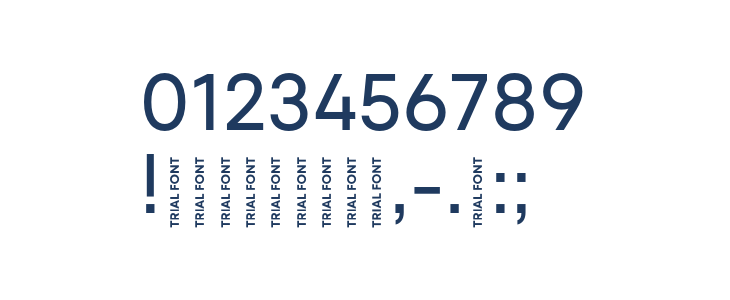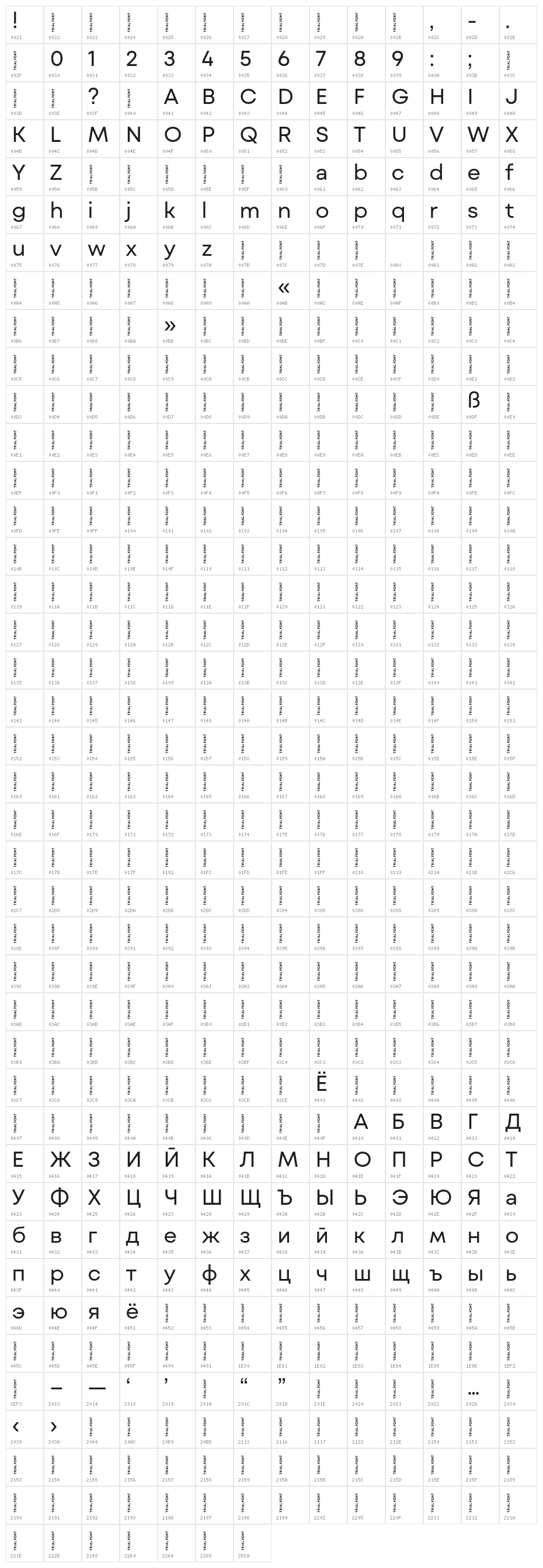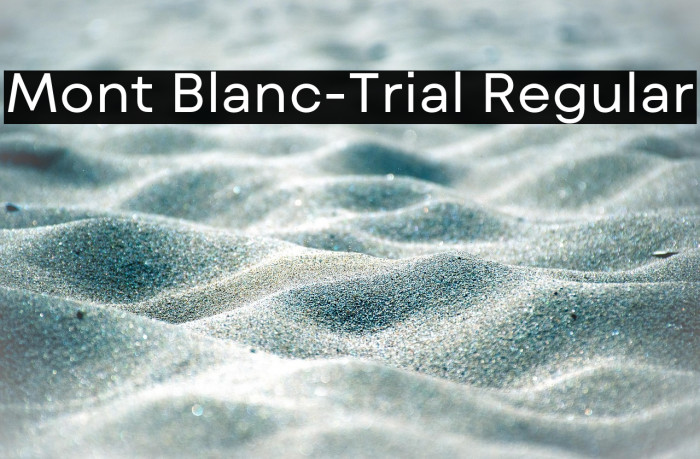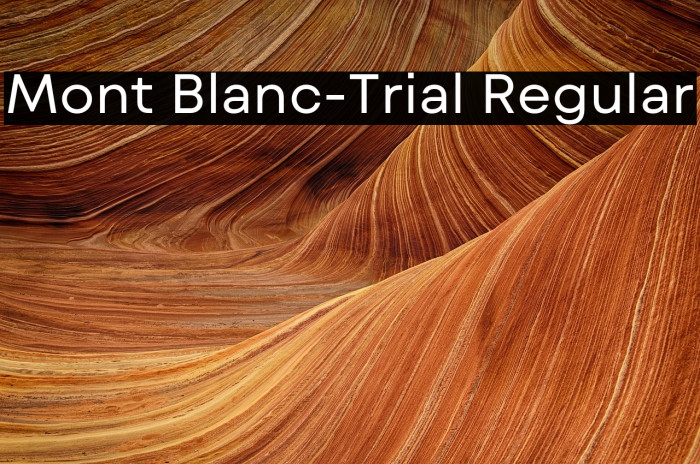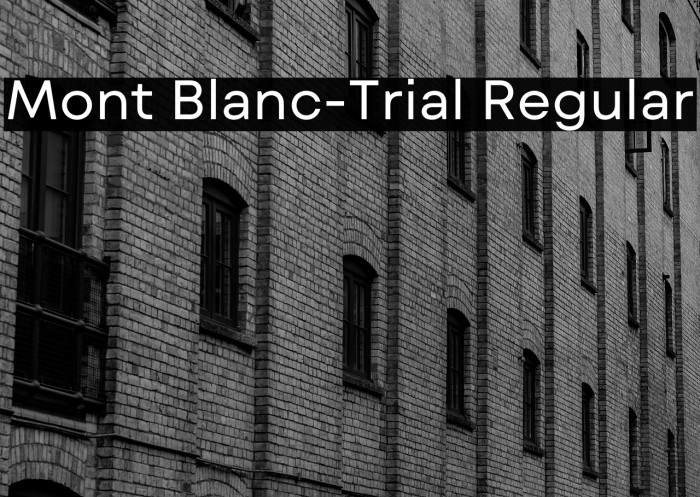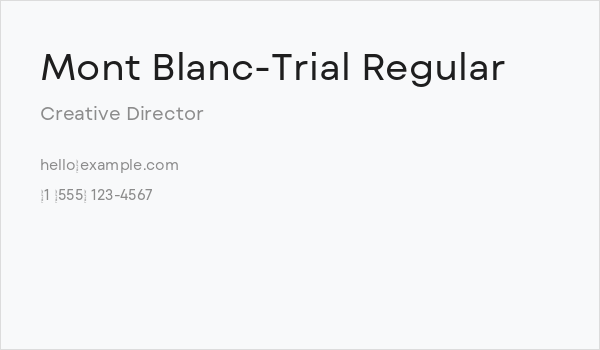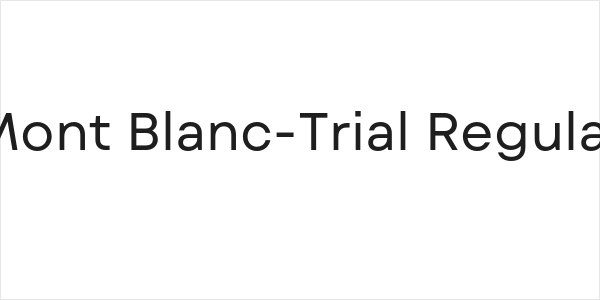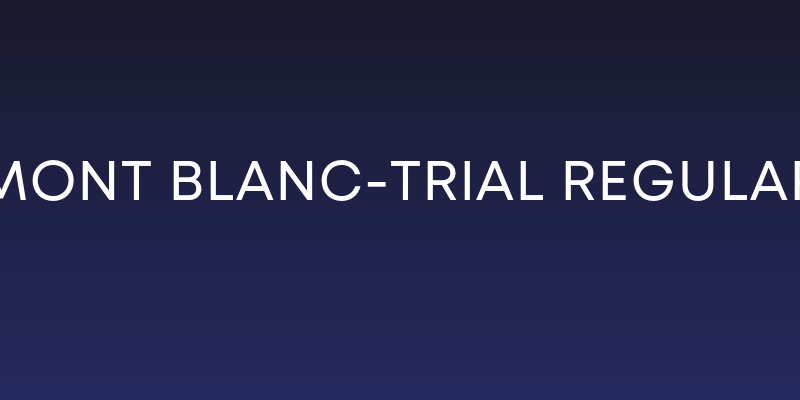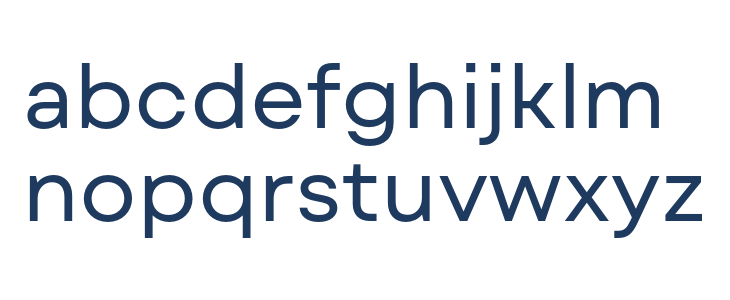
Mont Blanc-Trial Regular Font
Mont Blanc-Trial Regular Description
This font features a clean and modern sans-serif design with a focus on simplicity and readability. The characters are well-proportioned, with a consistent stroke width that gives it a uniform appearance. The uppercase letters are bold and assertive, while the lowercase letters maintain a friendly and approachable feel. The numerals are clear and easy to distinguish, making them suitable for various applications. Special characters are designed with the same attention to detail, ensuring they integrate seamlessly with the rest of the typeface.
| Proposed Projects | Ideal for branding, web design, advertising, and editorial projects where clarity and modernity are key. |